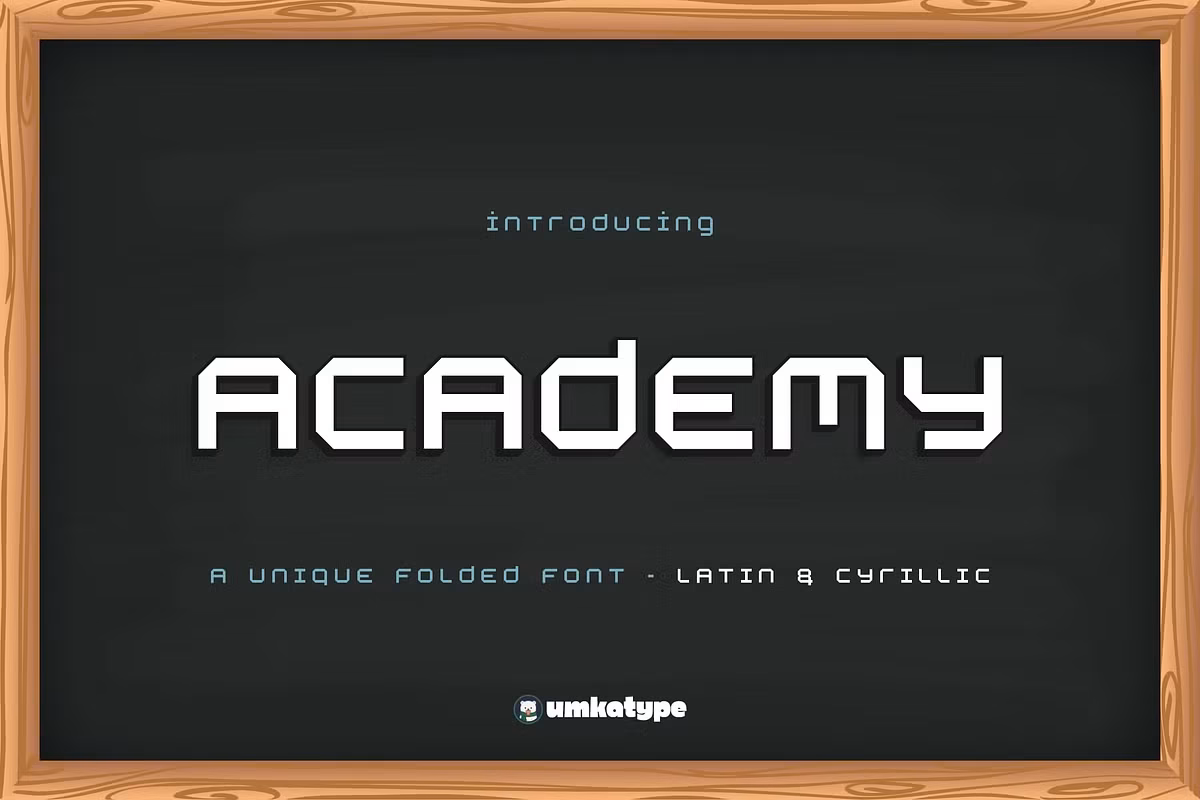
You must purchase this font for commercial use. However, you can download Academy Display Font Free Download for testing purposes. Academy is a modern display font designed to bring a strong, professional touch to your designs. With its clean lines, sharp edges, and elegant structure, this font is perfect for branding, logos, editorial layouts, posters, and any project that requires bold, impactful typography.
The stylish and versatile design of Academy Display Font ensures that it stands out without sacrificing readability, making it ideal for both large headings and smaller text applications. Whether you're working on a corporate brand, creating a high-end product label, or developing an eye-catching poster, this font adds a polished and authoritative feel to your typography.